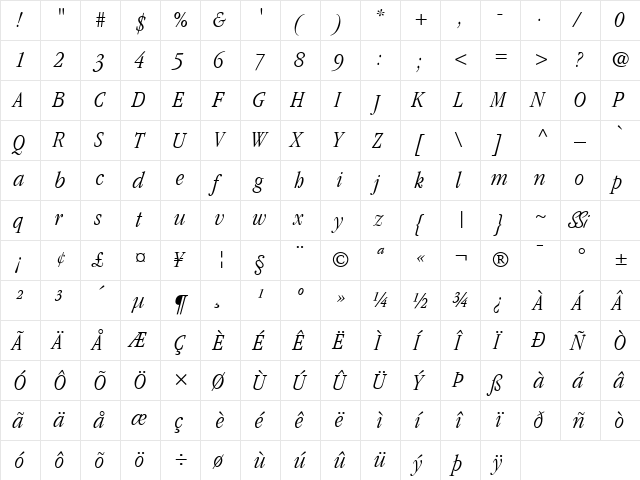
Garamond Light Condensed SSi Light Condensed Italic Font Preview
Design Context for Garamond Light Condensed SSi Typeface
Garamond Light Condensed SSi takes a measured approach to typography — its balanced proportions and neutral character make it a reliable workhorse for both digital and print work. The dynamic lean of this cut emphasises speed and emphasis in any layout. Its slender proportions lend an understated elegance to any composition. The condensed width makes it efficient for tight spaces without sacrificing legibility.
Pro Tip: Use Garamond Light Condensed SSi for emphasis, pull quotes, and subheadings where its slanted energy can add rhythm to the layout.